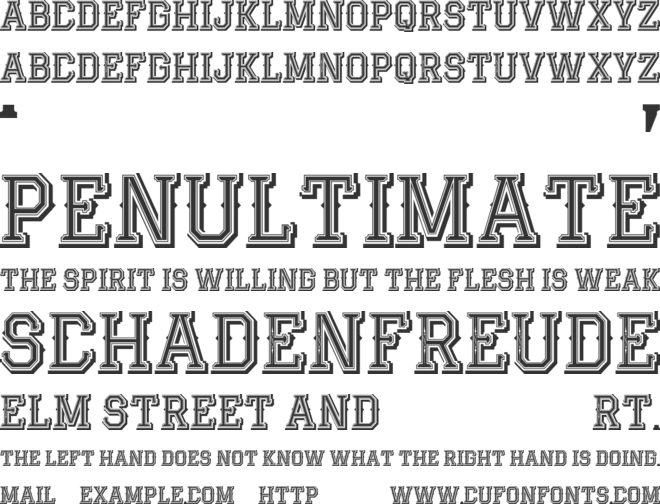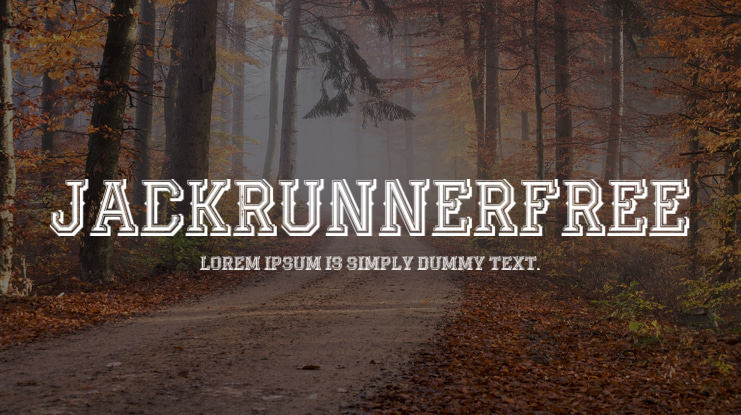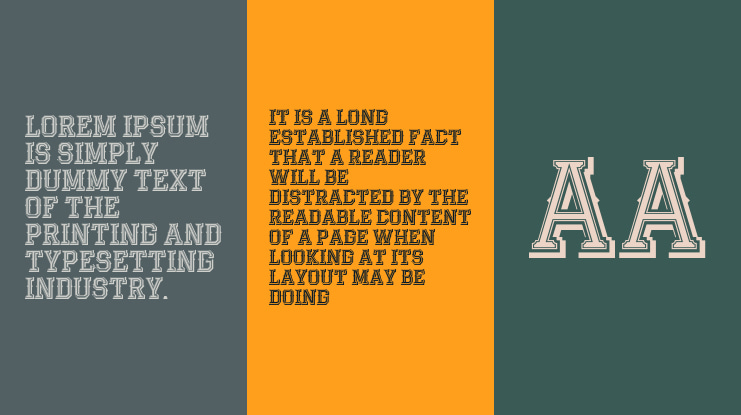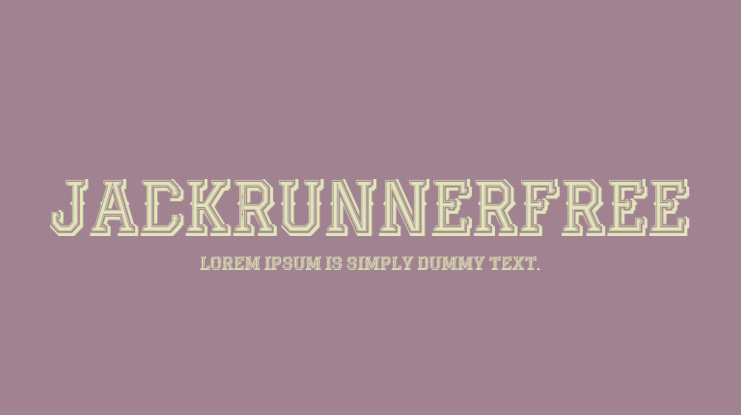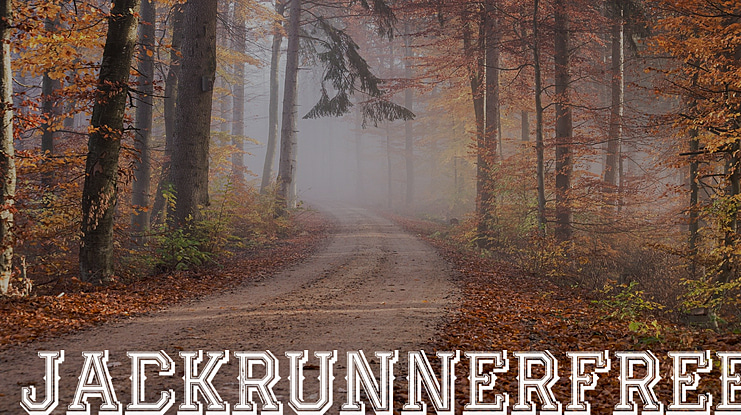
JackRunnerFree Font
Jack Runner is inspired by vintage typefaces and retro baseball typography combining with a victorian floral. NOTE : This is free version, free for personal use, and commercial use (with a permition, if you don't mind),if you want the full version , please contact me at